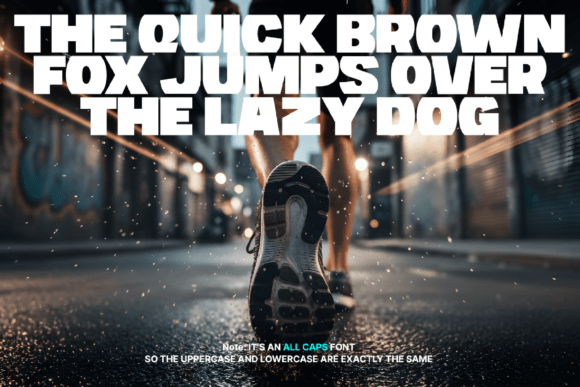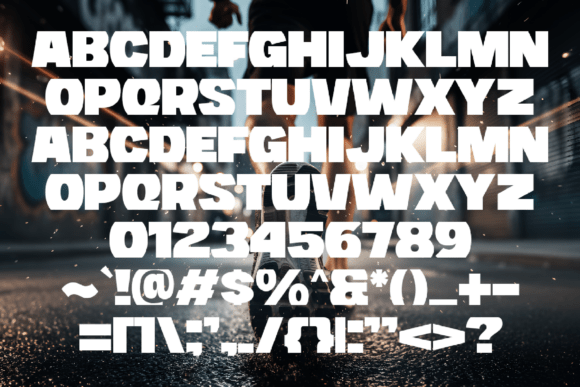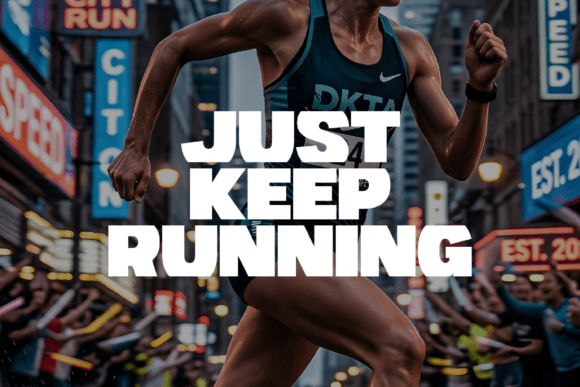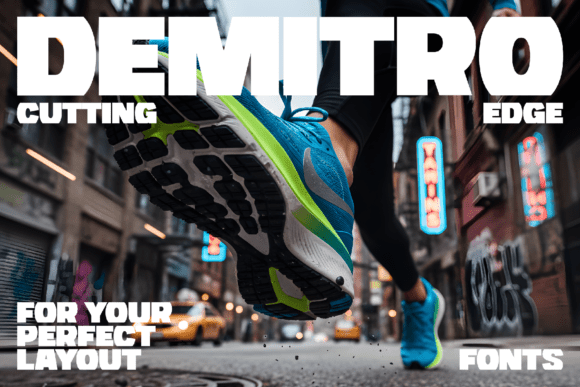
Redefining the Grid: The Power of Demitro Font
In the world of typography, a good font can make all the difference in the design of a project. For designers who demand structure and precision, Demitro Font is a game-changer. This bold sans-serif font is not just another addition to the typography family; it’s a precision-engineered display font that transforms standard characters into hyper-stable, squared-off blocks that command attention.
The Concept: Form Meets Function
Demitro’s DNA is rooted in the reliability of a classic heavy sans, but its execution is purely modern. The font’s unique “flat-cut” philosophy ensures that every line of text creates a perfectly aligned horizontal boundary. This geometric profile makes it a “cheat code” for achieving professional, balanced layouts with zero effort. With Demitro, designers can create stunning text blocks that feel less like writing and more like architecture.
Why Demitro is a Layout Essential
So, what makes Demitro a must-have for designers? Here are just a few reasons:
- Perfect Compositions: The squared-off tops and bottoms of Demitro’s characters create natural “snap-to” points, making it ideal for tight leading and interlocking text blocks. This feature ensures that your text is always perfectly aligned, giving your design a clean and professional look.
- Branding with an Edge: Demitro provides the perfect balance of modernity and sophistication, making it ideal for brands that want to stand out from the crowd. Its unique geometric profile adds an edge to any design, giving it a distinctive look that’s sure to grab attention.
The Benefits of Using Demitro
Demitro Font offers a range of benefits for designers, including:
- Improved Readability: The font’s precision-engineered design ensures that text is easy to read, even at small sizes.
- Increased Versatility: Demitro’s unique design makes it suitable for a wide range of design applications, from posters and flyers to websites and social media graphics.
- Enhanced Creativity: With Demitro, designers can experiment with new and innovative typography styles, pushing the boundaries of what’s possible with text.
How to Use Demitro in Your Design
Using Demitro Font in your design is easy. Here are a few tips to get you started:
- Experiment with Different Sizes: Demitro’s precision-engineered design ensures that it looks great at any size, from large headings to small body text.
- Play with Color: The font’s bold, geometric profile makes it perfect for use with bright, bold colors.
- Mix and Match: Try pairing Demitro with other fonts to create unique and interesting typography styles.
Demitro Font is a game-changer for designers who demand precision and structure in their typography. Its unique “flat-cut” philosophy and precision-engineered design make it perfect for creating professional, balanced layouts with ease. Whether you’re a seasoned designer or just starting out, Demitro is a must-have font that will take your typography to the next level.
Key Features of Demitro Font
- Precision-engineered design
- Unique “flat-cut” philosophy
- Squared-off tops and bottoms
- Hyper-stable, block-like characters
- Perfect for tight leading and interlocking text blocks
- Ideal for branding and display text
Overall, Demitro Font is a powerful tool that can help designers create stunning typography that’s both functional and beautiful. With its unique design and precision-engineered construction, it’s a must-have for any designer looking to take their typography to the next level.